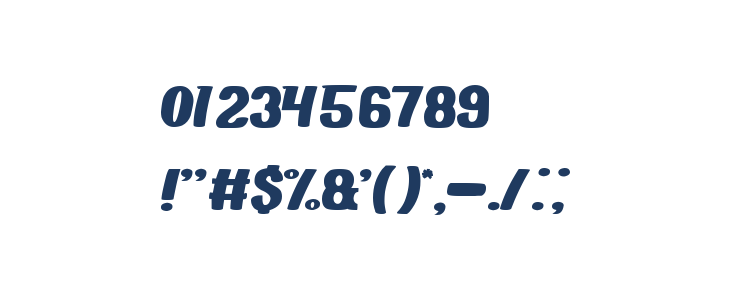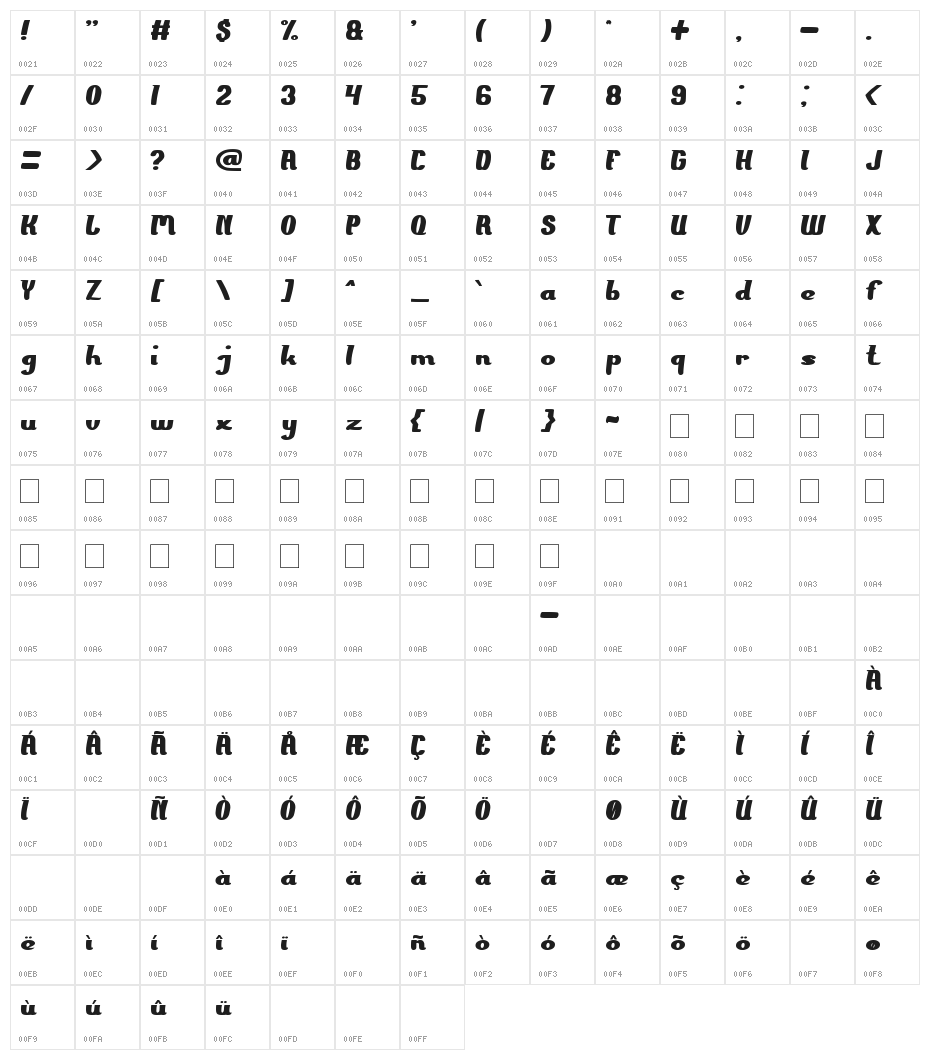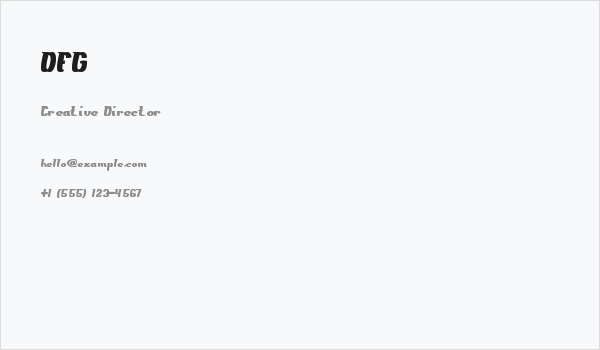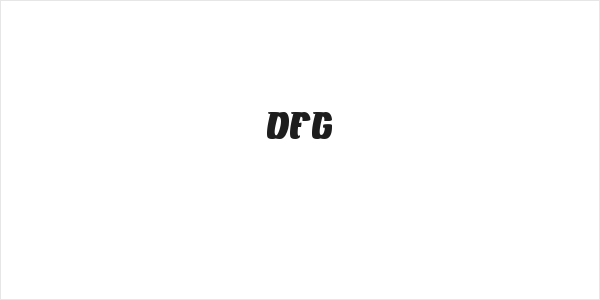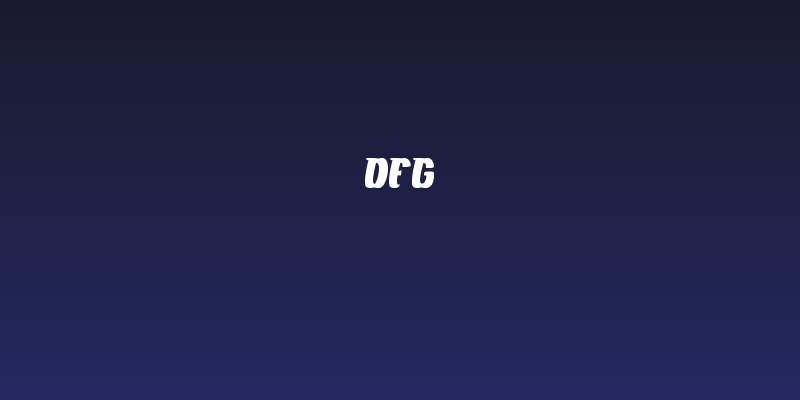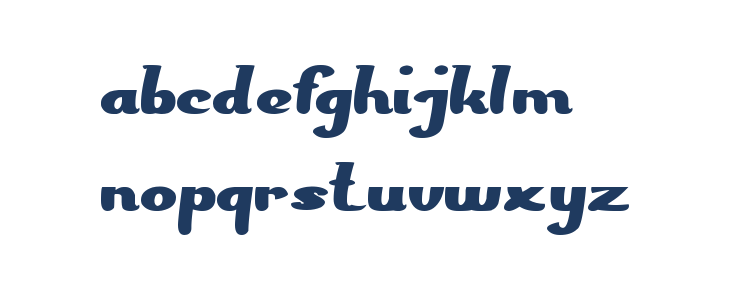
DFG Font
DFG Description
This font features a bold, playful style with rounded edges and a slightly retro feel. The characters are thick and have a consistent weight throughout, giving them a strong presence. The uppercase letters are particularly wide, while the lowercase letters maintain a more compact form. The numbers and special characters follow the same bold and rounded design, ensuring uniformity across all elements. This font's unique style makes it stand out, with a touch of whimsy that adds character to any design.
| Overall Style | Retro, Playful |
| Use Case | Logos, Posters, Branding |
| Proposed Projects | Ideal for posters, logos, children's books, and playful branding projects. |